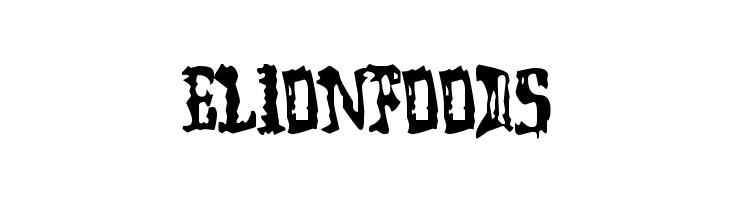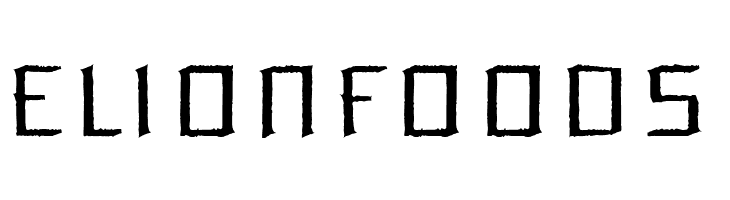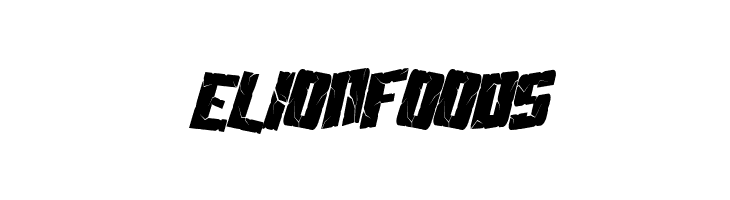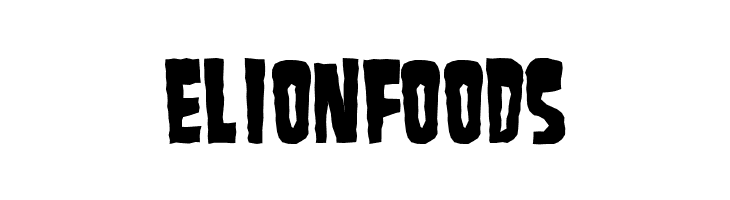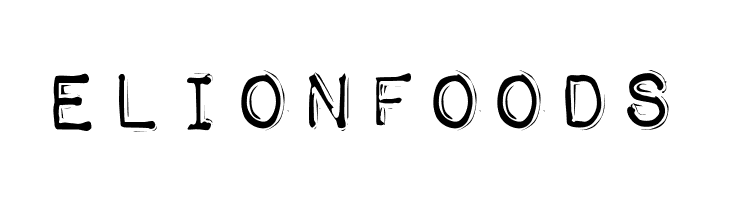
A bold, edgy font with a distressed, hand-drawn appearance.
A distressed, hand-drawn font with a playful and mysterious vibe.
A bold, artistic font with a distressed, brush-like appearance.
A bold, rugged font with a hand-drawn, distressed appearance.
A bold, distressed font with a rugged, stencil-like appearance.